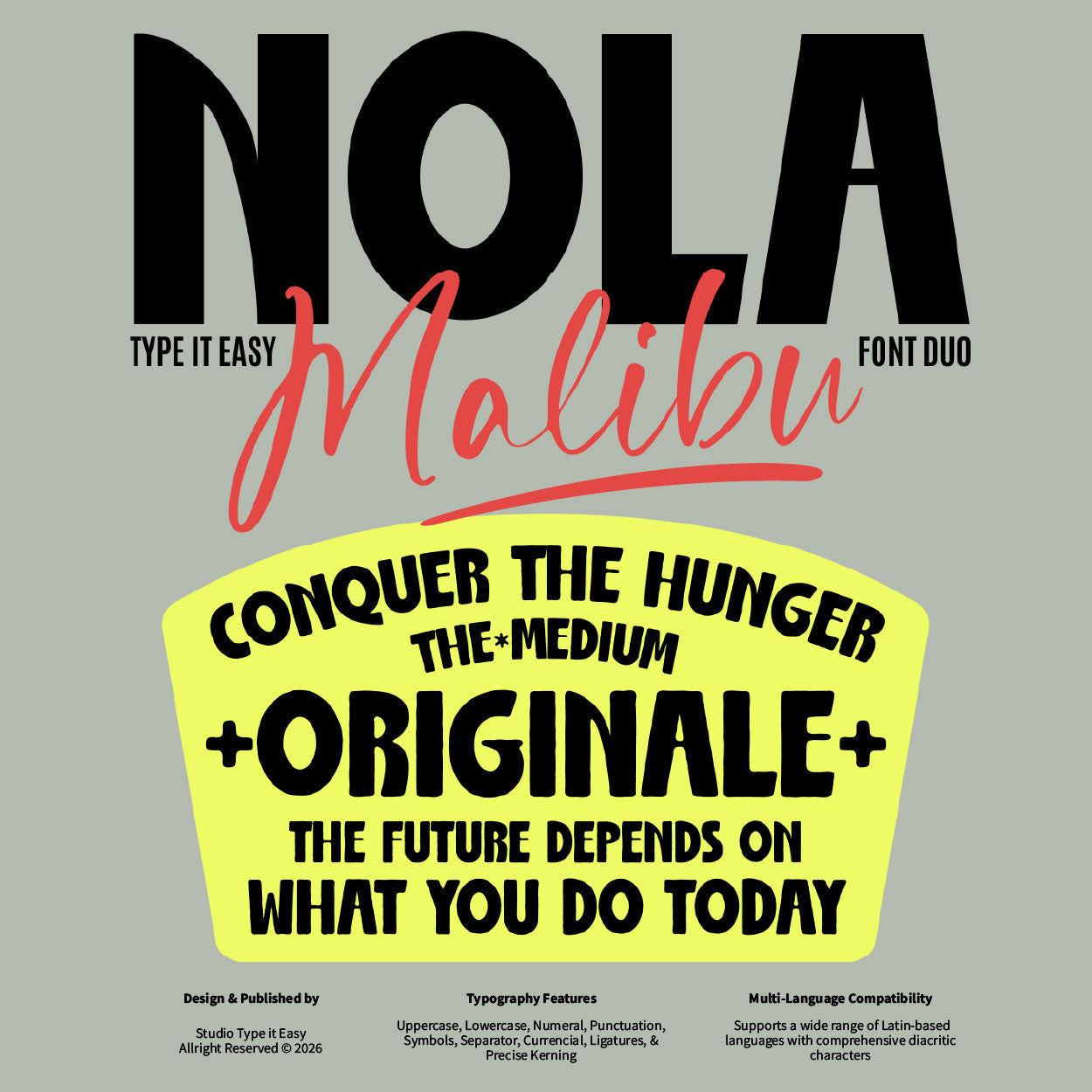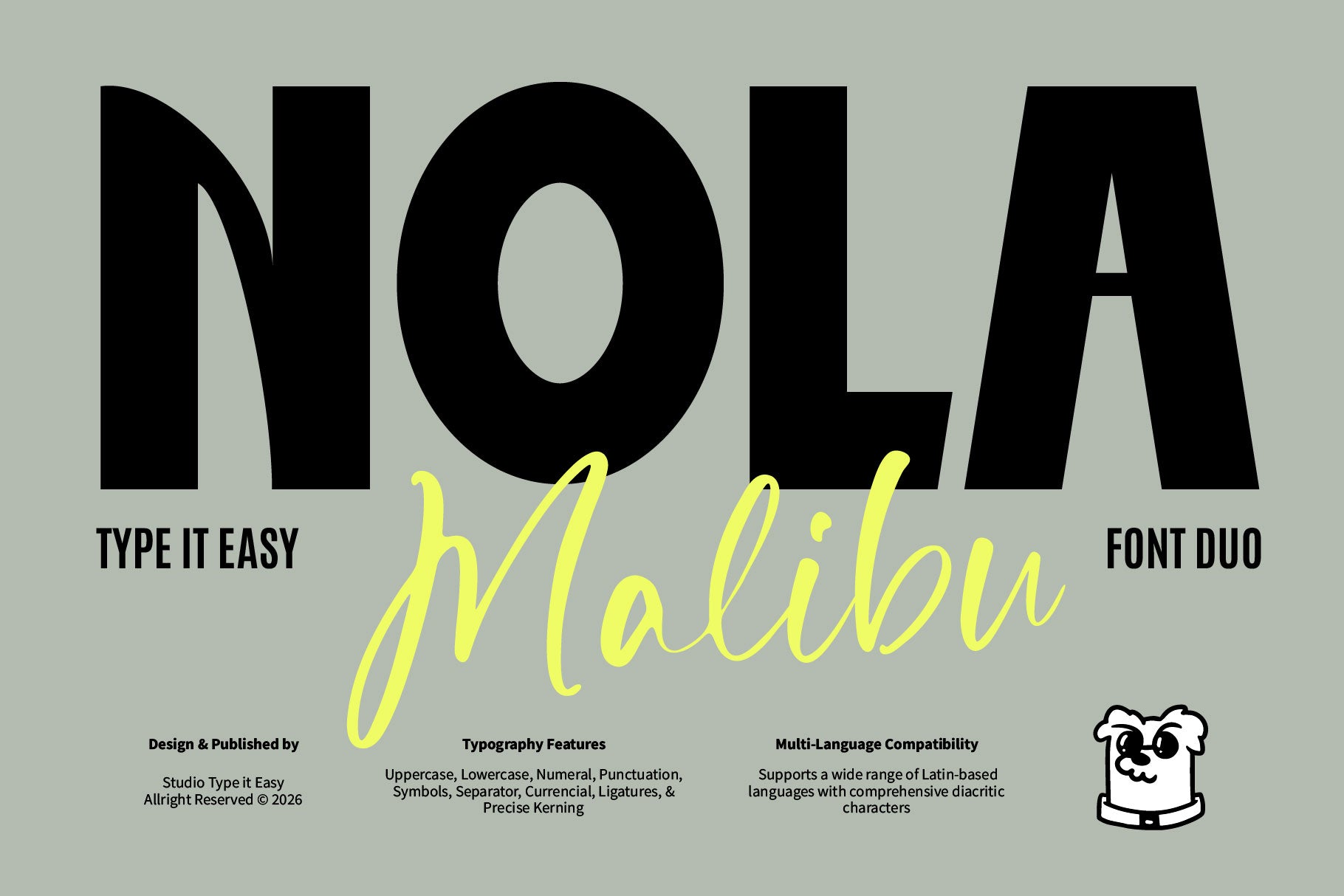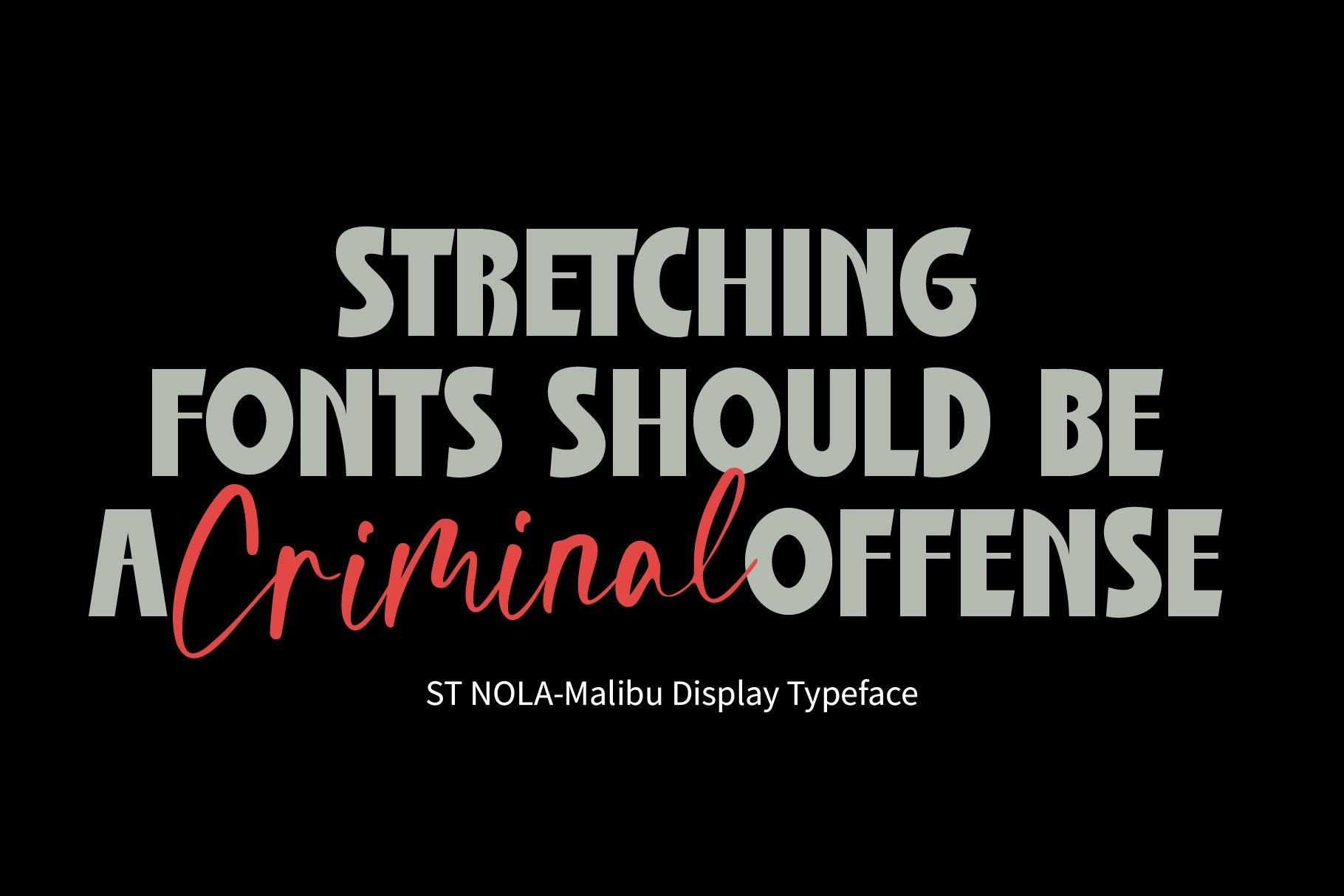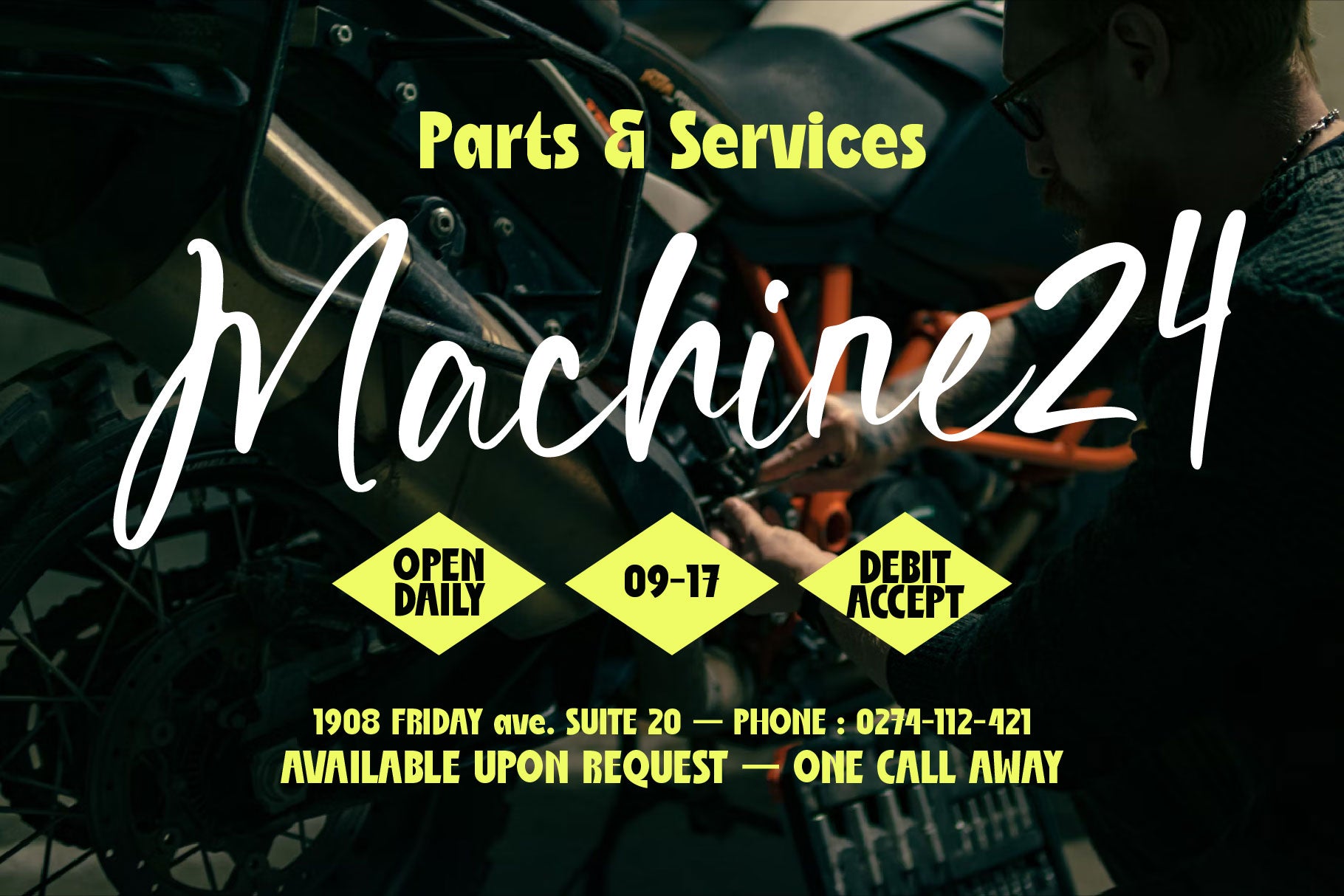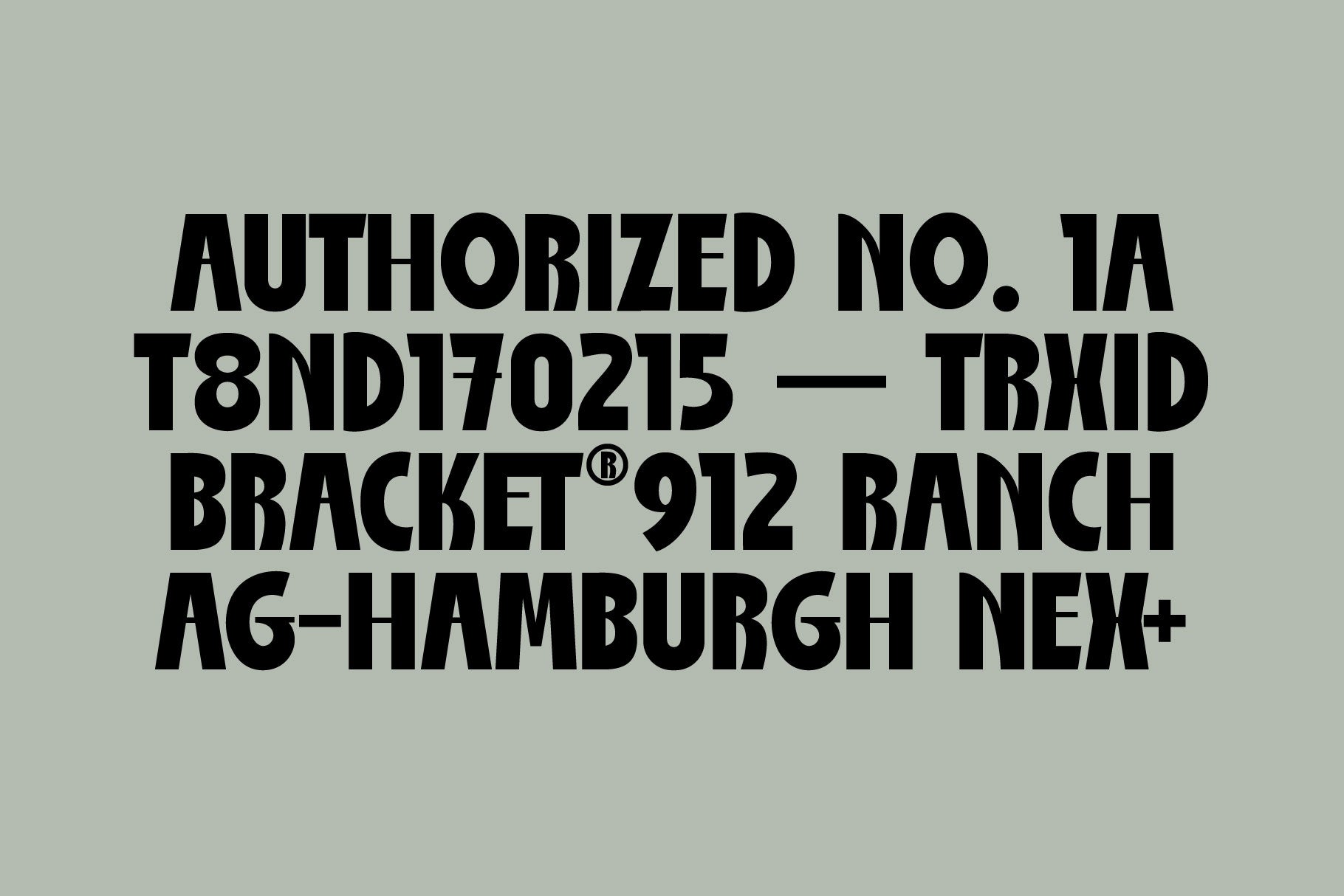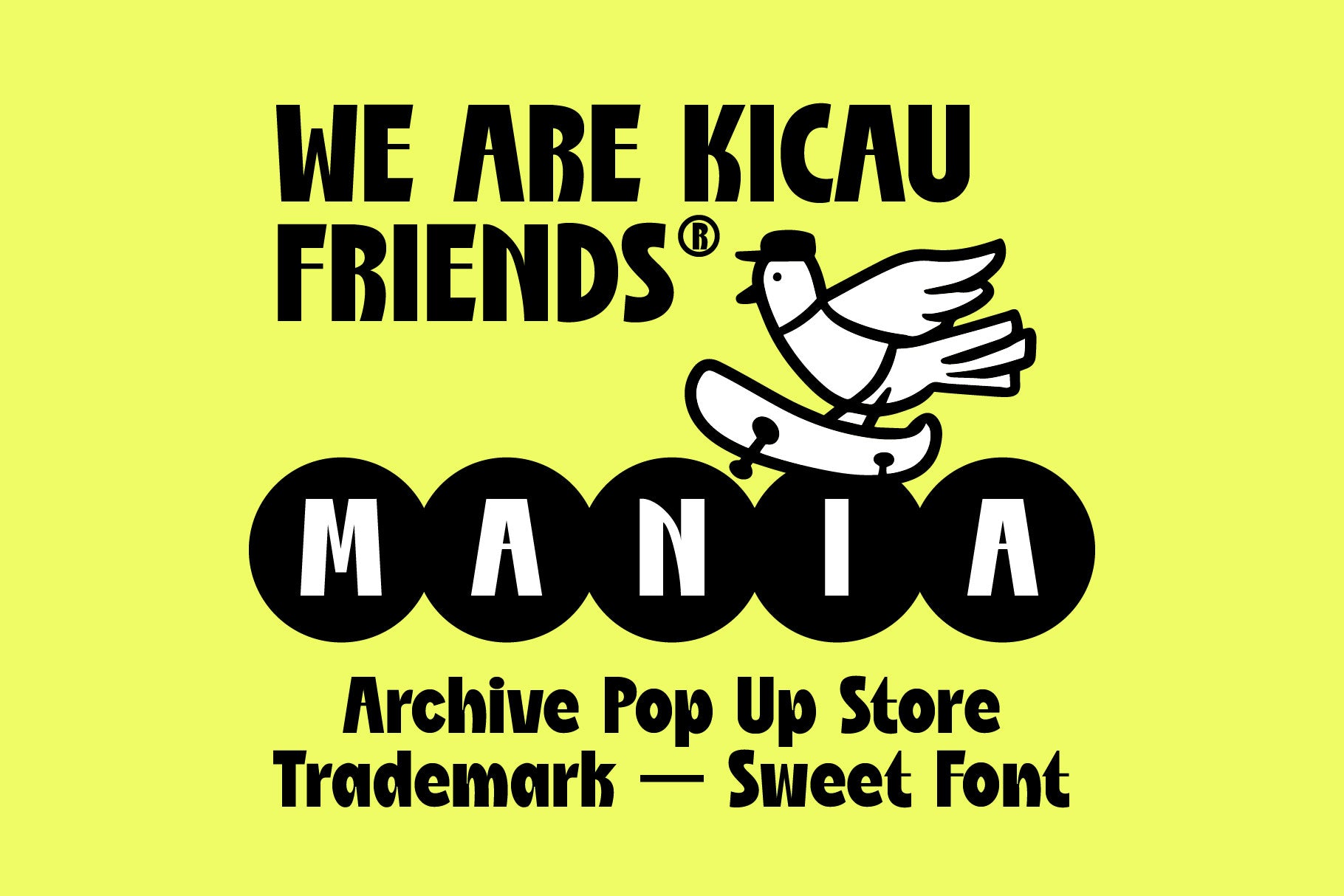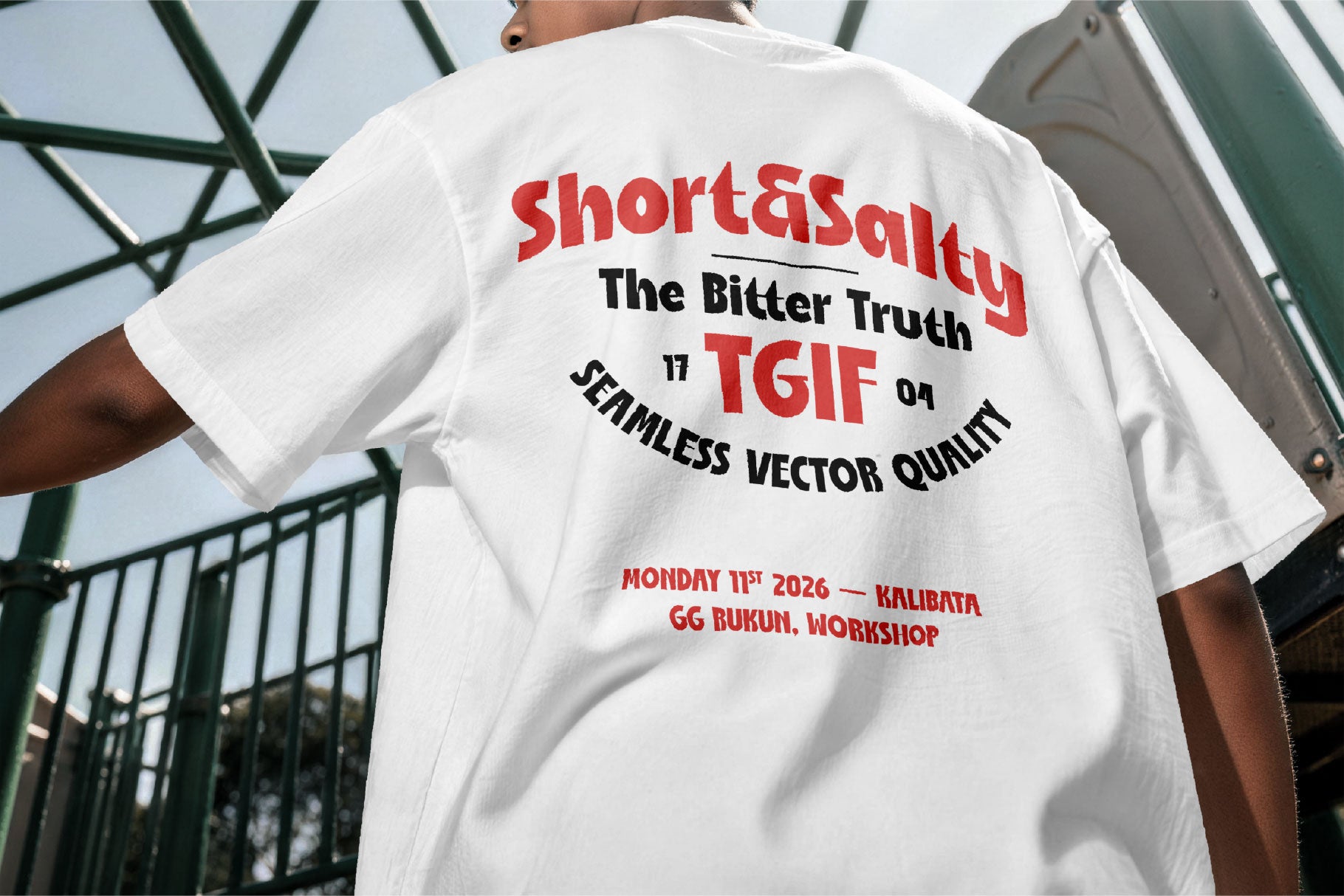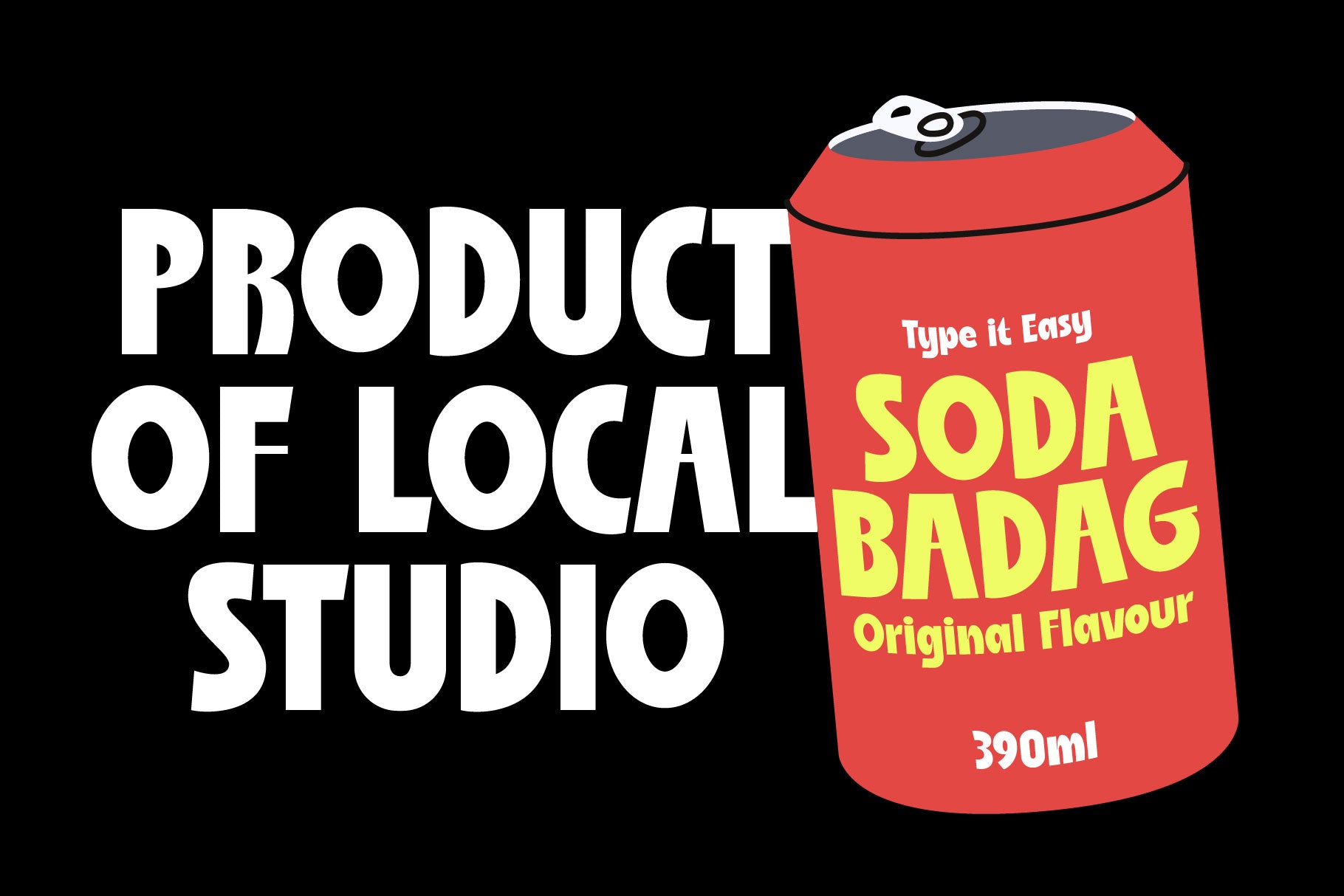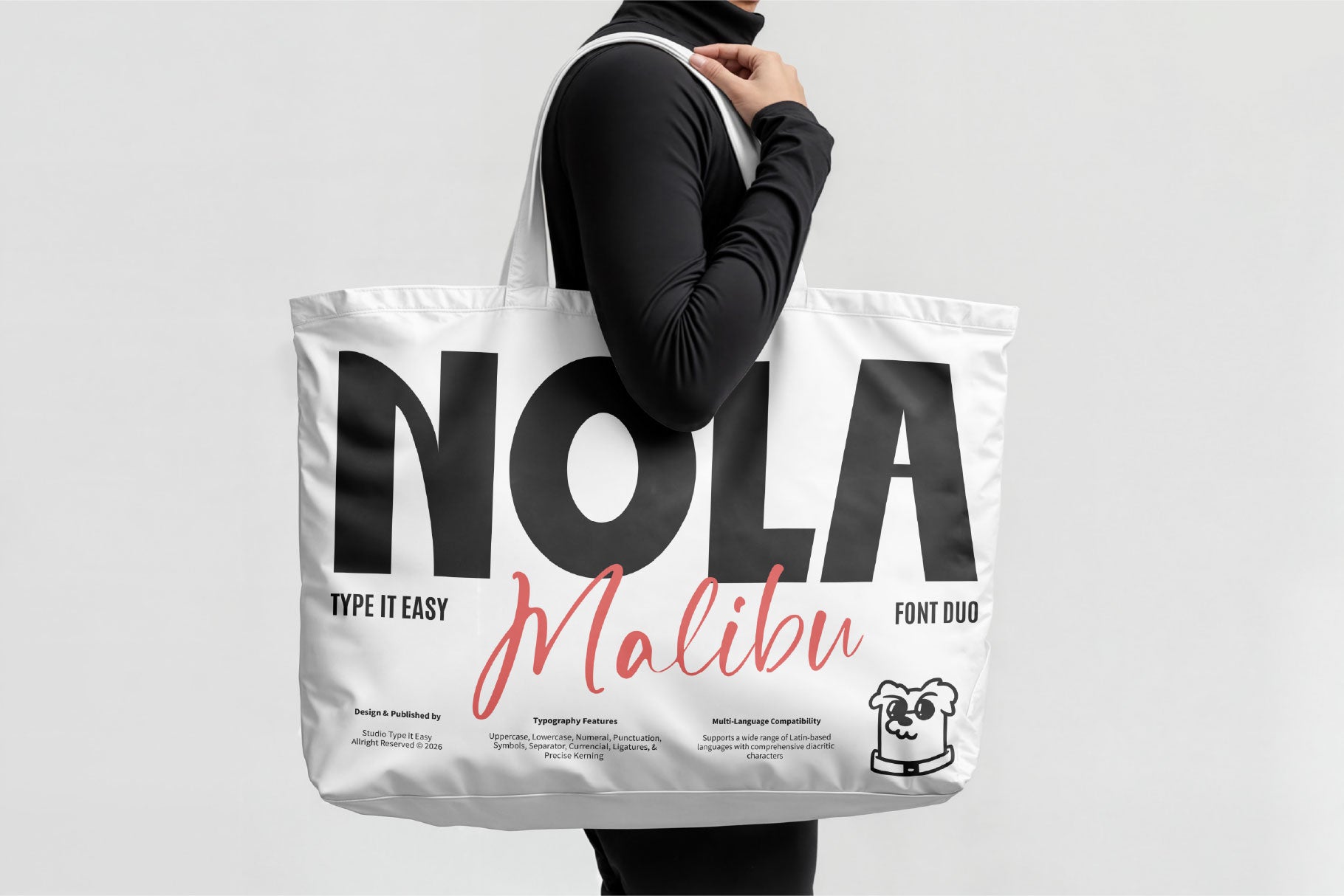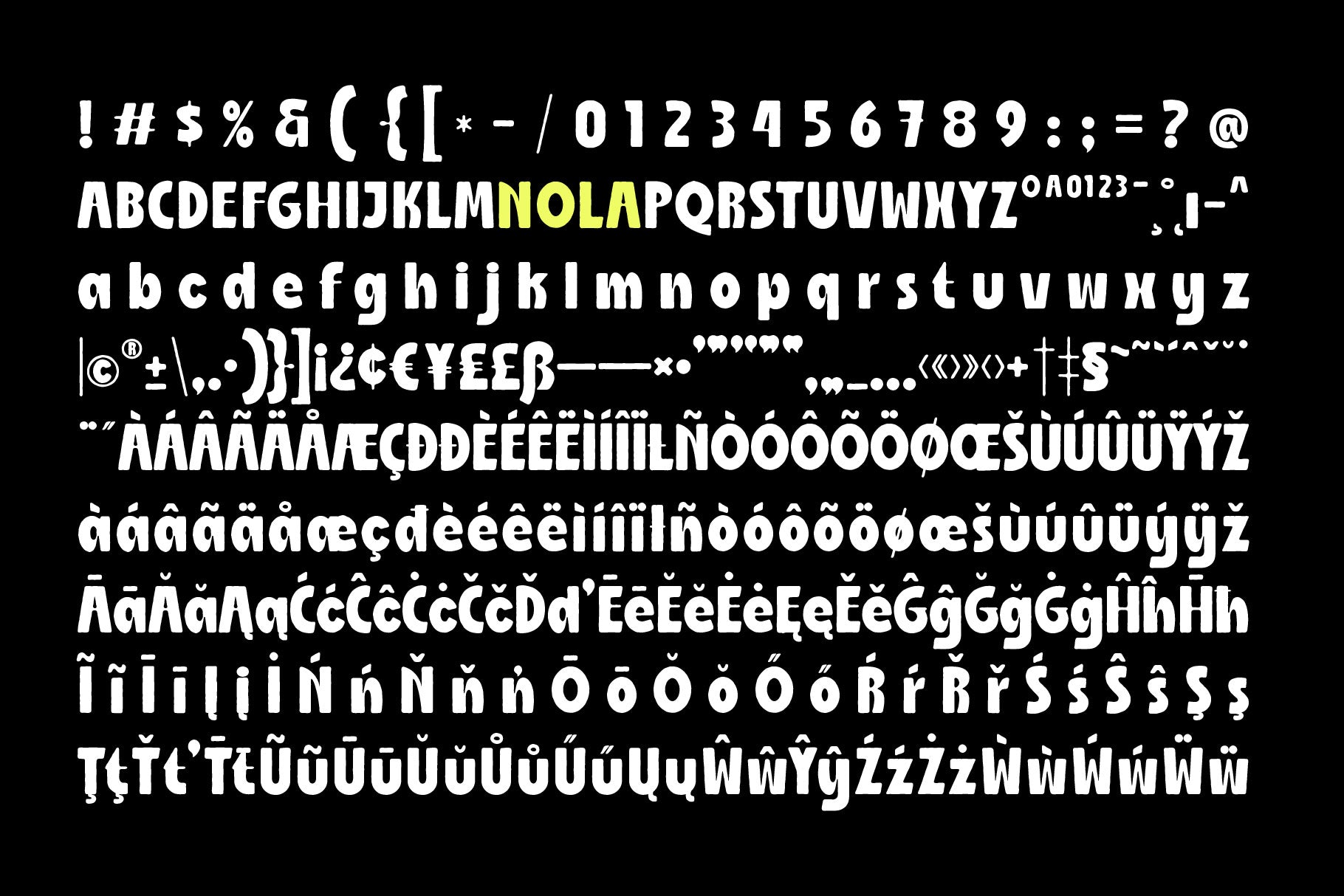
ST Nola Malibu - Display & Script Font Duo
Modern Sans & Signature Script Duo for Bold, Stylish Branding
ST Nola Malibu is a versatile font duo that combines a bold modern sans serif with an elegant handwritten script. Designed to create strong visual contrast and effortless hierarchy, this pairing delivers a contemporary yet personal aesthetic that works beautifully across branding, packaging, social media, editorial layouts, and lifestyle businesses.
The bold sans serif brings confidence, clarity, and modern appeal, while the flowing signature script adds warmth, sophistication, and a handcrafted touch. Together, they create eye-catching designs that feel both professional and approachable.
Why You'll Love It
Modern font duo with built-in contrast
Bold sans serif and elegant signature script
Perfect for branding and logo design
Ideal for social media and content creation
Professional yet personal appearance
Highly versatile across industries
Strong visual hierarchy for impactful layouts
Easy to mix and match in design projects
Perfect For
Brand Identity Design
Logo Design
Fashion Branding
Beauty & Cosmetics Packaging
Social Media Templates
Editorial Layouts
Website Headers
Product Packaging
Marketing Materials
Photography Branding
Boutique Businesses
Lifestyle Brands
Creative Agencies
Modern Business Branding
Merchandise Design